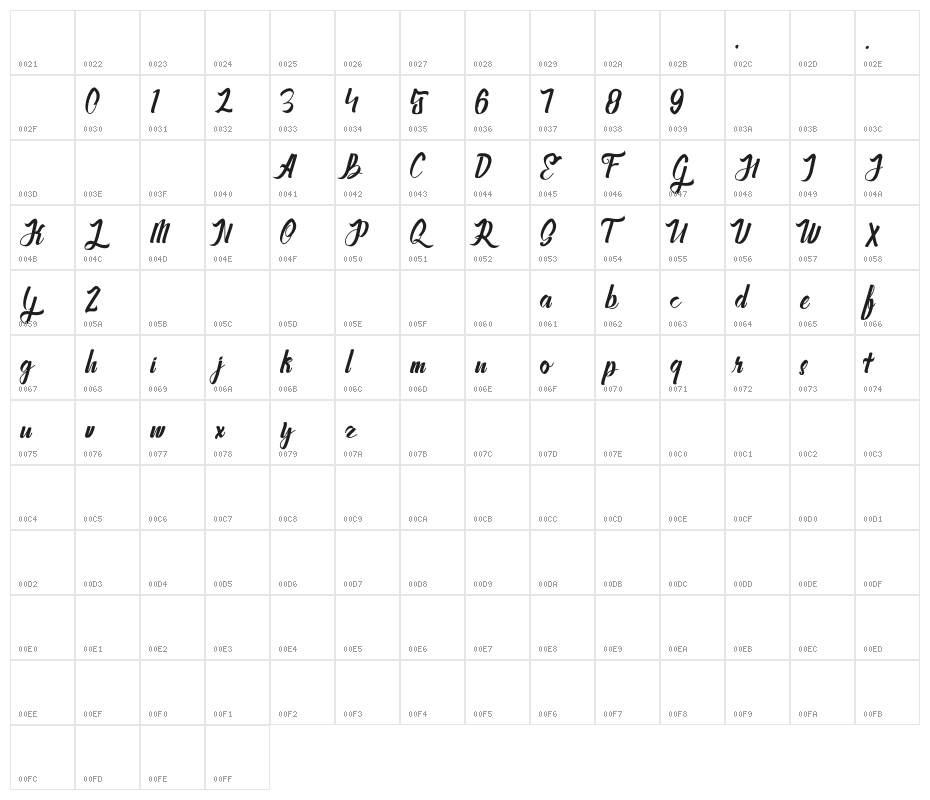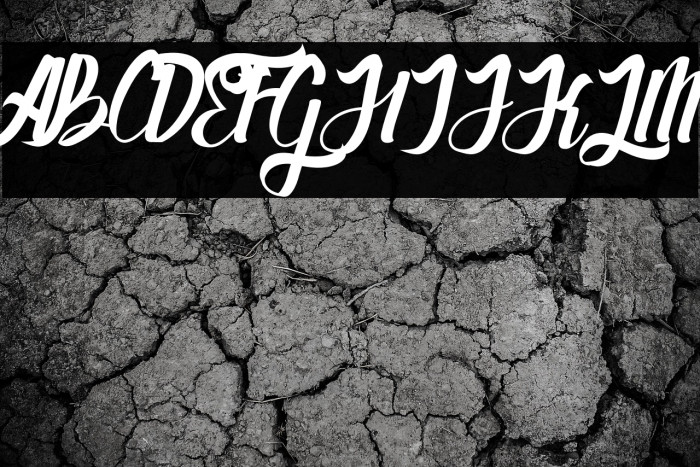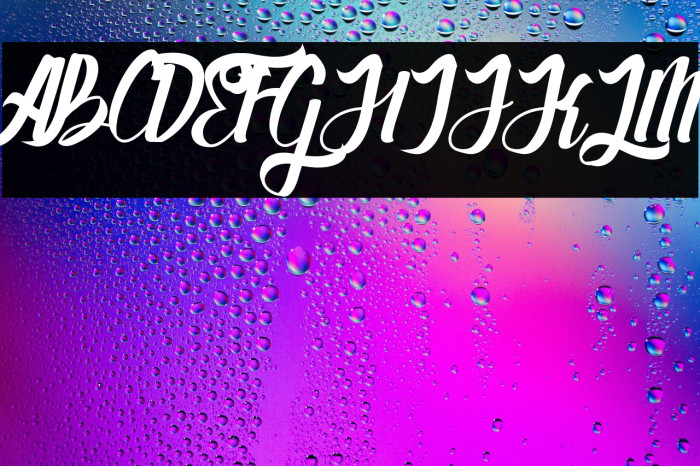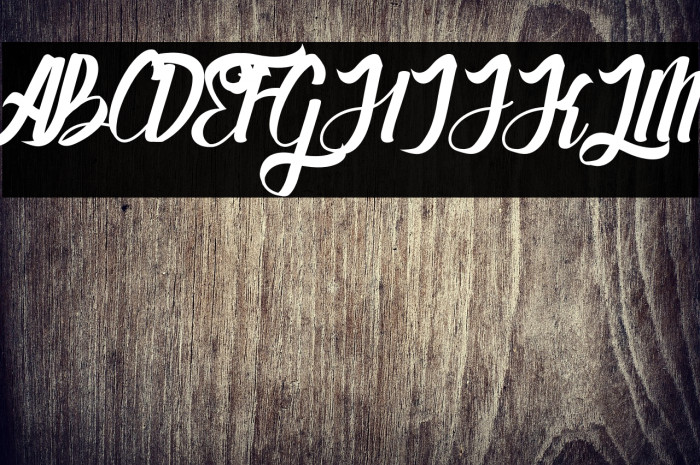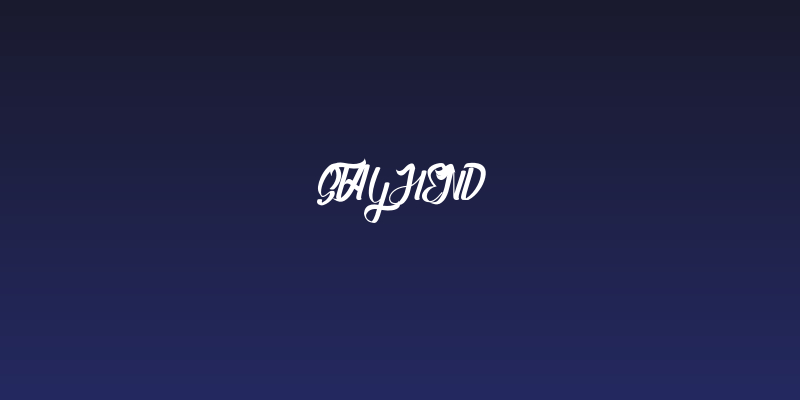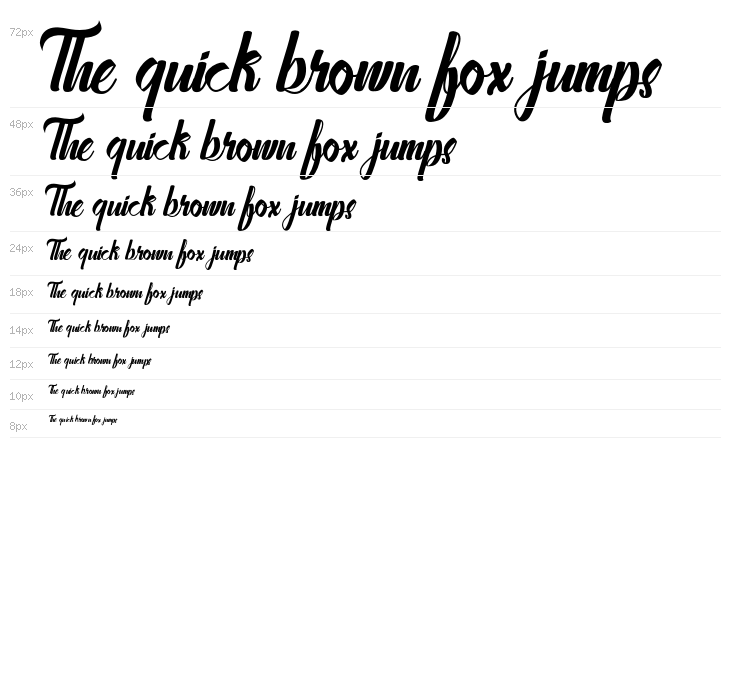
Stayhend Font
Stayhend Description
This font features a dynamic and flowing script style, characterized by its elegant and cursive letterforms. The uppercase letters exhibit a bold and sweeping design, with intricate loops and flourishes that add a sense of movement and sophistication. The lowercase letters maintain a consistent style, with smooth connections and a slightly slanted orientation, enhancing the overall fluidity. The numerals are designed to complement the script style, with a playful yet refined appearance. This font is well-suited for projects that require a touch of elegance and personality, making it ideal for invitations, branding, and decorative purposes.